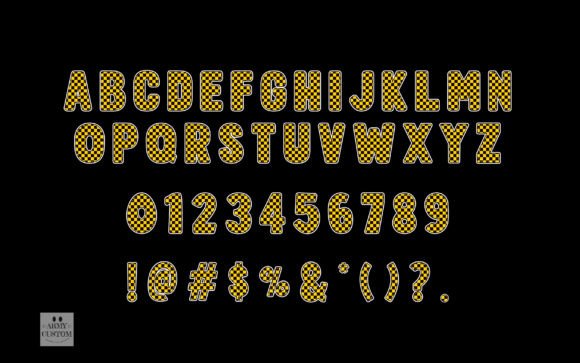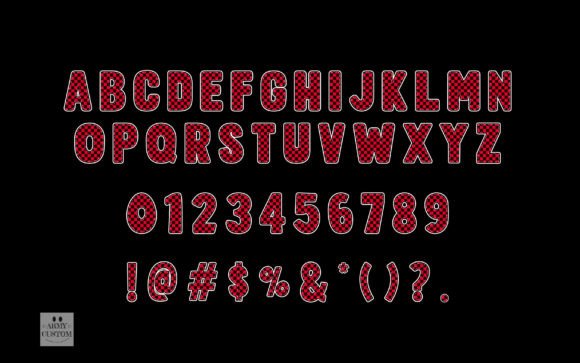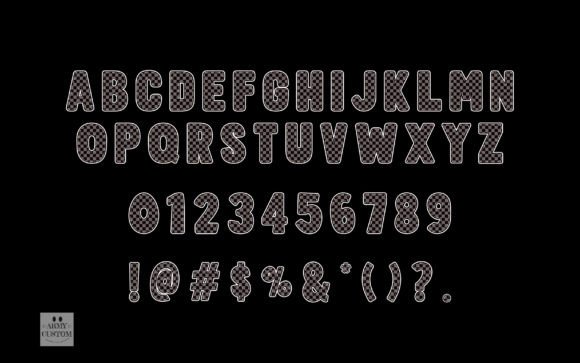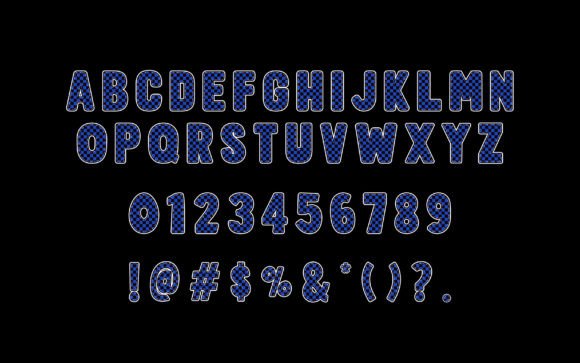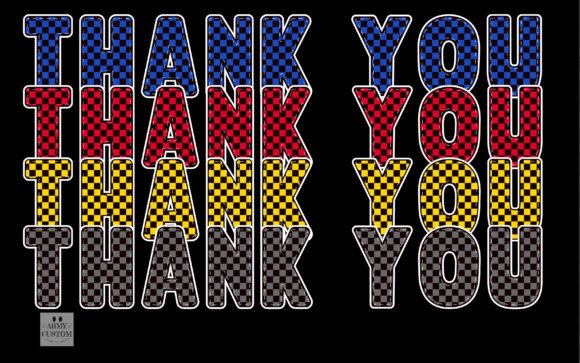
Unleash Your Creativity with the Checkered Army Font
You’ve spent hours browsing through design inspiration, and finally, the perfect idea strikes. You envision a unique logo for your brand, with bold colors and a touch of playfulness. Suddenly, a checkered pattern pops into your mind – the perfect combination of contrast and visual interest. But, how do you turn this idea into a reality?
Enter the Checkered Army Font, a versatile and eye-catching alphabet that’s sure to elevate your designs. This checkered font features characters that incorporate a pattern resembling a checkerboard, adding a fun and modern twist to any project. With its compatibility with popular cutting machines and design programs, the Checkered Army Font is a valuable tool for designers looking to add some personality to their work.
Checkered Army Font Key Features
- Font Style: The Checkered Army Font is a unique, pixel art-inspired sans-serif font with a distinctive checkered pattern.
- Unique Characteristics: The font’s checkered pattern is created by a combination of black and white squares, giving it a visually striking and eye-catching appearance.
- Legibility: Despite its unique appearance, the font remains highly legible, making it suitable for use in body text and other areas where readability is important.
Designer Review: Checkered Army Font
I recently had the chance to work with the Checkered Army Font, and here’s my honest review.
- Unique Design: The font’s checkered pattern is bold and eye-catching, making it perfect for designs that need a bit of edginess.
- Highly Versatile: The font comes in a range of weights and styles, allowing for a lot of creative freedom.
- Good Legibility: Despite its unconventional design, the font is still easy to read, even at smaller font sizes.
- Difficult to Read at Small Sizes: While the font is legible at larger sizes, it can become difficult to read at very small font sizes.
- Limited Character Set: The font’s character set is not as comprehensive as some other fonts, which can be a limitation for designers who need to work with special characters.
Overall, I think the Checkered Army Font is a great choice for designers who want to add a bit of boldness and creativity to their work. While it may have some limitations, its unique design and versatility make it a great option for the right project.
For optimal results, use the Checkered Army Font for headings and titles, as its bold and distinctive style is well-suited for drawing attention. You can also use it for body text in situations where a more playful and energetic tone is desired.
The Checkered Army Font is ideal for:
– Sports and fitness branding
– Youth-oriented marketing campaigns
– Retro-themed designs
– Fun and playful web design